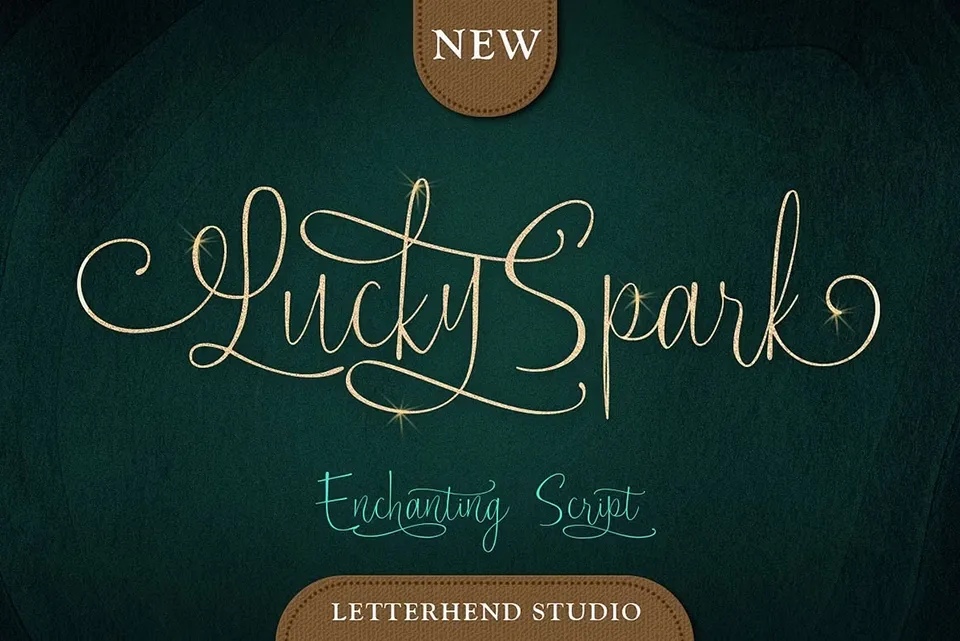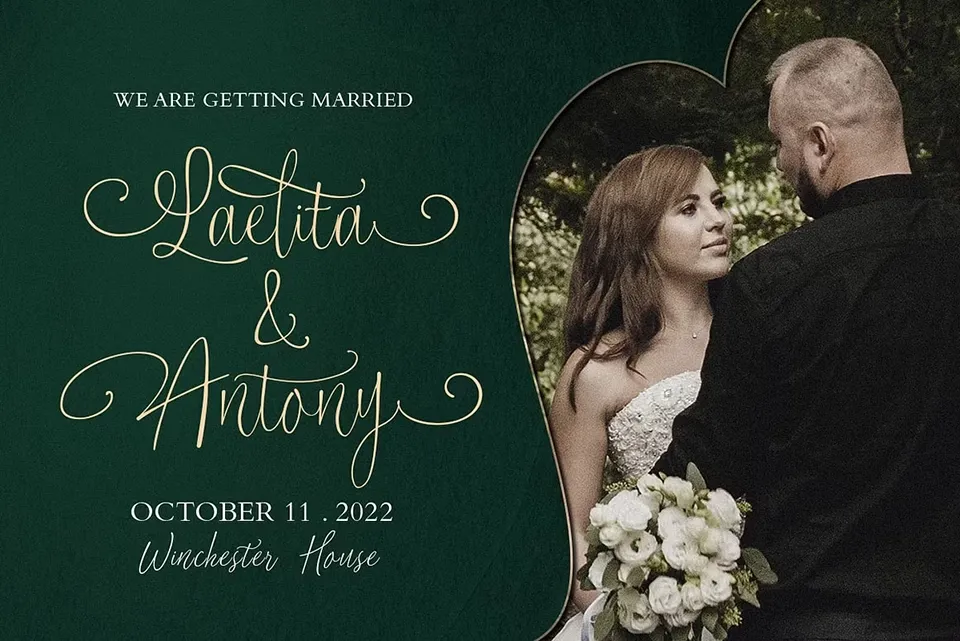
Lucky Spark Font
Lucky Spark Font is an enchanting script font designed by Letterhend Studio. This elegant typeface features flowing, delicate letterforms with graceful curves and stylish flourishes, creating a sophisticated, handcrafted look. The thin lines and subtle decorative elements give it a touch of magic and charm. Lucky Spark is perfect for projects requiring an elegant aesthetic, such as wedding invitations, luxury branding, logos, greeting cards, and other designs where a refined, personal touch is desired. It brings a sense of enchantment and sophistication to any creative work.